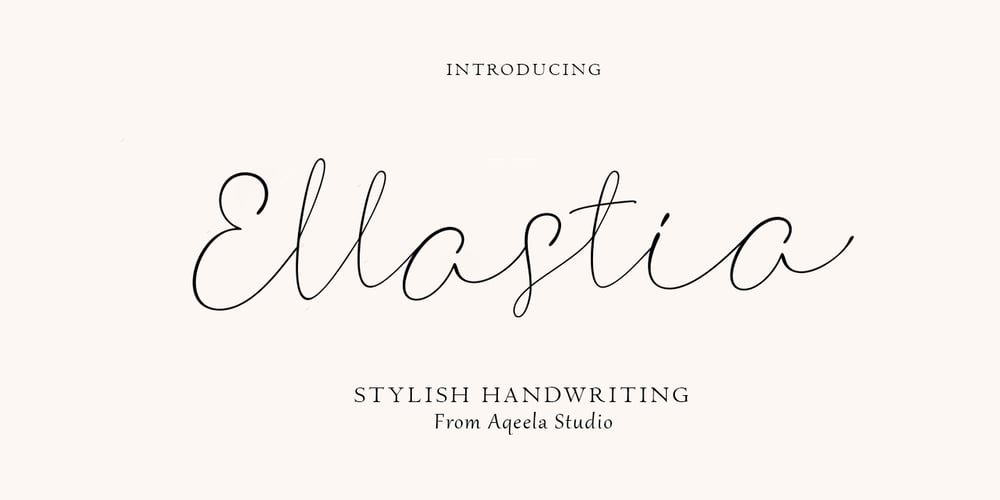
Ellastia Font Family was designed by Muhammad Nasir and published by Aqeela Studio. Ellastia contains 1 styles and family package options. This modern Ellastia calligraphy script has been written attentively with gentle curves to produce a font that is truly distinctive and original. It contains a complete set of uppercase & lowercase letters, a wide variety of punctuation marks, numbers, and multilingual support. Perfect for adding a unique and elegant touch to your writing and branding projects.Use it to make your ideas more realistic and create spectacular designs!This font is PUA encoded which means you can access all glyphs and swashes with ease!